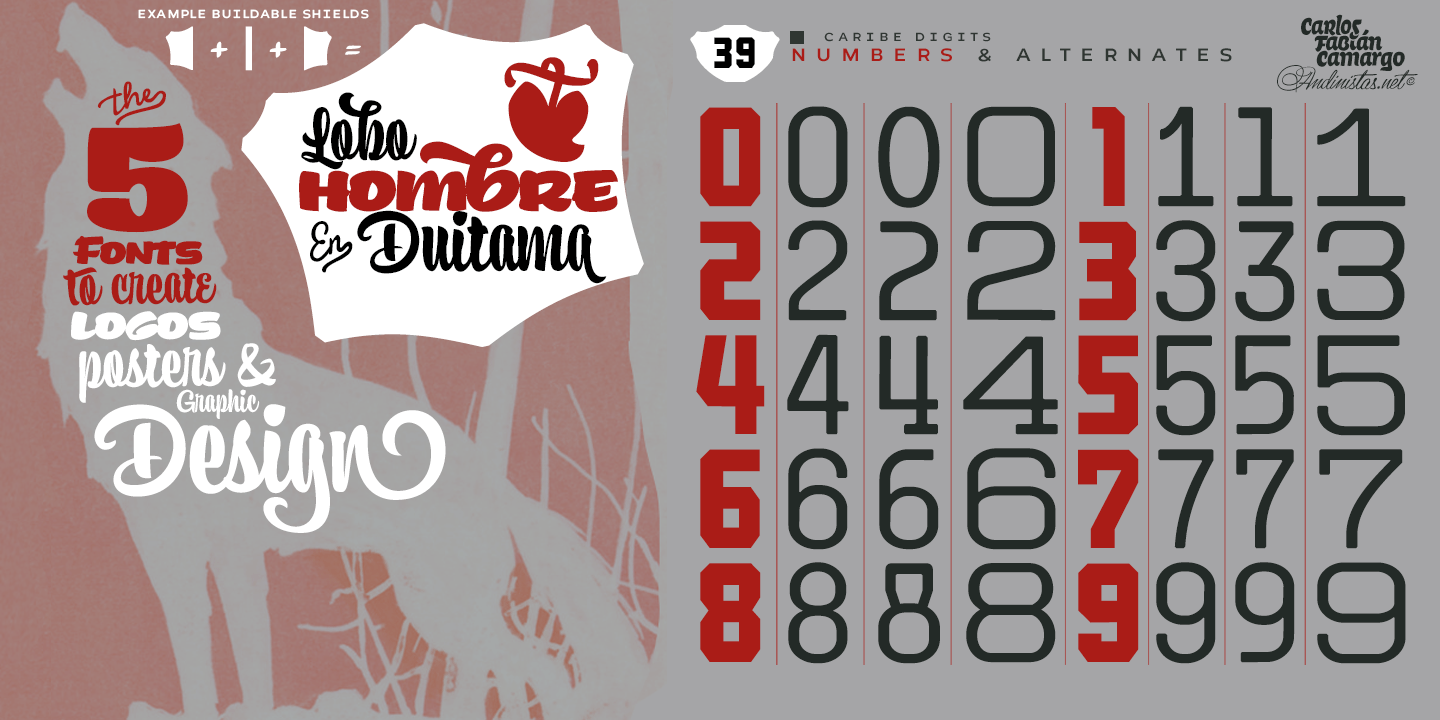
Caribe Font is perfect for tropical vacation brochures, beach resort logos, Caribbean restaurant menus, summer festival posters, island-themed wedding invitations, surf shop signage, tropical cocktail packaging, and coastal real estate marketing materials.
Caribe Font is exciting because it captures the vibrant spirit of Caribbean culture with its warm, flowing letterforms that evoke sandy beaches and swaying palm trees. The typeface brings an instant tropical vacation feeling to any design project, making viewers dream of crystal-clear waters and endless summer days.
Caribe Font family includes Regular, Bold, Light, and Italic variants, providing designers with versatile options for creating dynamic typography hierarchies in their tropical-themed projects.
Whether you're designing for a beachside restaurant, tropical resort, or summer music festival, Caribe Font Free Download offers the perfect solution for capturing that laid-back island atmosphere. This distinctive typeface combines readability with personality, ensuring your message stands out while maintaining that essential Caribbean charm. The font's organic curves and relaxed character spacing make it ideal for both headlines and body text in vacation-themed marketing materials. Designers love how Caribe Font instantly transforms ordinary text into something that feels like a warm ocean breeze, making it an essential addition to any creative professional's font library for tropical and leisure-focused design projects.